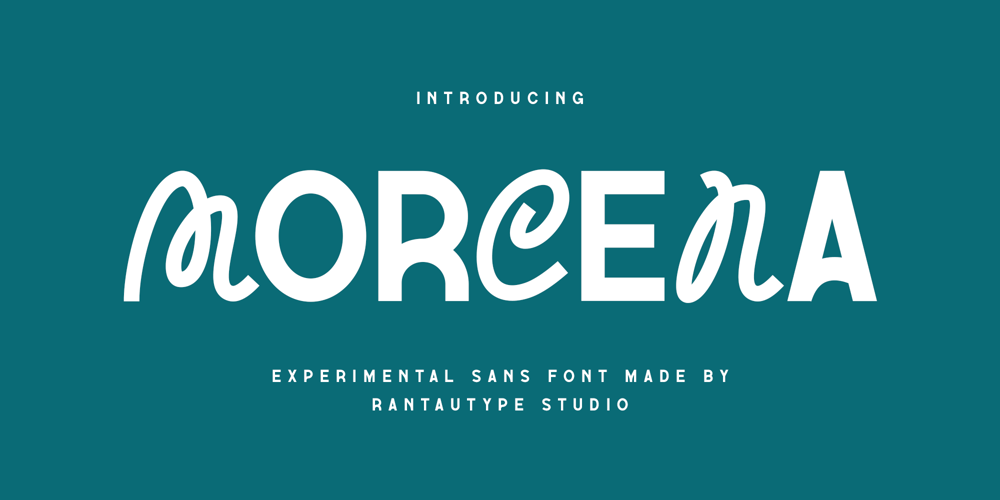
Morcena Font Family was designed by Yudi Pratama Chandra and published by RantauType. Morcena contains 1 styles and family package options. Morcena is a experimental unique font with stylish curve and fun geometry inspire. Morcena bring geometry to fun flowles and memoriable shape. Morcena come to help you make a stunning brand and creative design project. We keep this font look modern, fun, cusual, elegant, clean and easy to use.Morcena is a perfectly choice for any creative endeavor, chic, lifestyle design such as logotype, advertisements, watermark on photography, stationery, branding project, display and magazine, invitation, corporate brand, product design, label, business project and many other project with modern or fun touch.What you have: Standart Glyphs Numberial and Functional Alternate and Ligature Works on PC & Mac Simple installations Accessible in Adobe Illustrator, Adobe Photoshop, Adobe InDesign, even work on Microsoft Word. Fonts include Multilingual Character for: Afrikaans, Albanian, Asu, Basque, Bemba, Bena, Breton, Chiga, Cornish, Dutch, English, Estonian, Filipino, Finnish, Friulian, Galician, Gusii, Indonesian, Irish, Italian, Kabuverdianu, Kalenjin, Kinyarwanda, Luo, Luxembourgish, Luyia, Machame, Makhuwa-Meetto, Makonde, Malagasy, Manx, Morisyen, North, Ndebele, Nyankole, Oromo, Portuguese, Quechua, Romansh, Rombo, Rundi, Rwa, Samburu, Sango, Sangu, Scottish, Gaelic, Sena, Shambala, Shona, Soga, Somali, Spanish, Swahili, Swedish, Swiss, German.Thank you for your purchase!Hope you enjoy with our font!